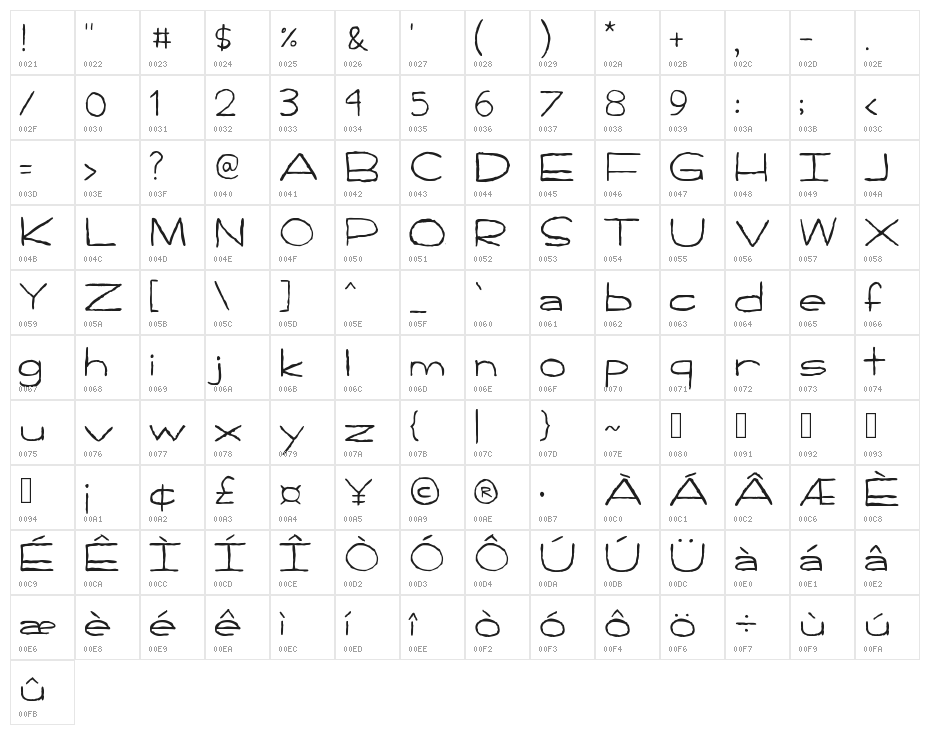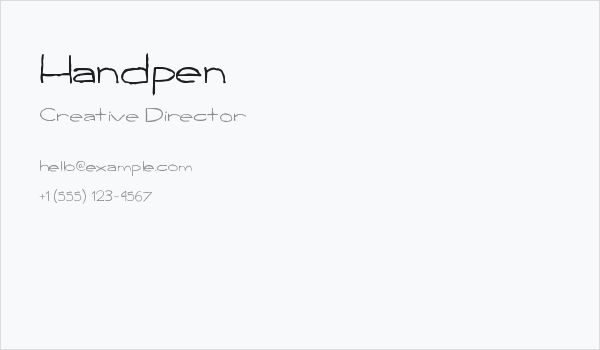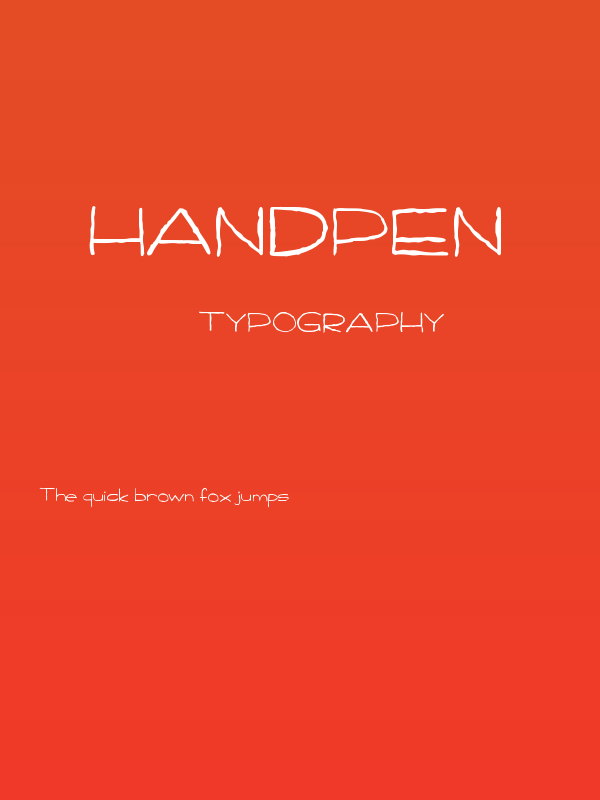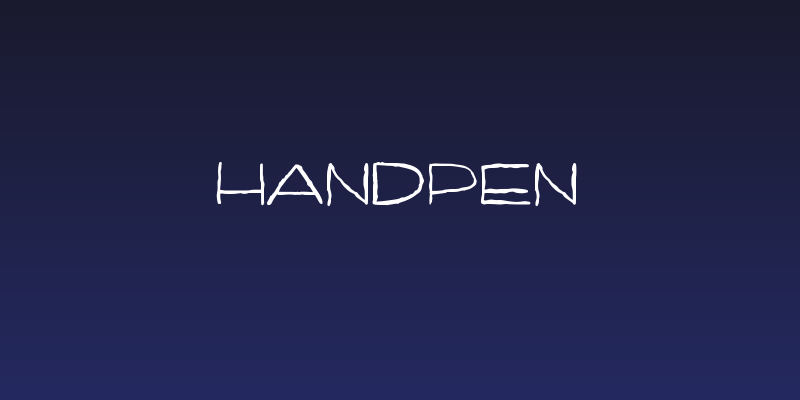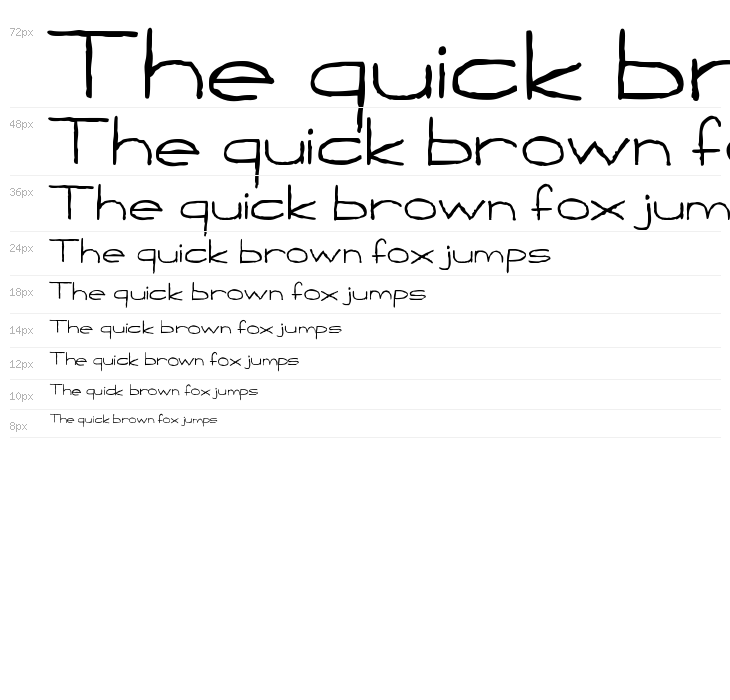
Handpen Font
Handpen Description
This font features a hand-drawn, casual style that mimics the look of handwriting with a slightly rough texture. The characters are irregular and organic, giving a personal and informal feel. The uppercase and lowercase letters are distinct, with playful curves and varying line thicknesses that add to its charm. The numerals and special characters maintain the same hand-crafted aesthetic, making it suitable for creative projects. Its unique style is perfect for adding a personal touch to designs.
| Proposed Projects | Ideal for greeting cards, invitations, personal branding, and creative projects that require a personal touch. |